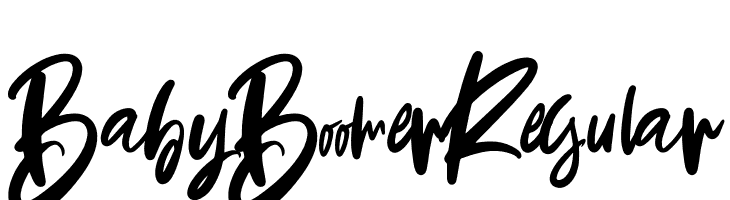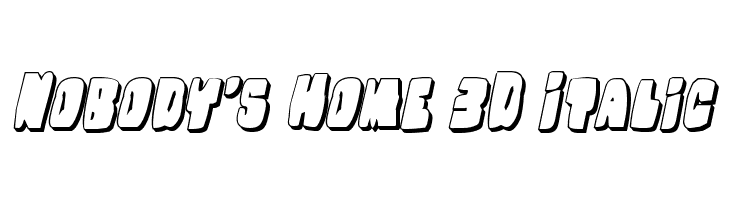
A bold, 3D italic font with a playful and dynamic style.
A bold, geometric font with a modern, industrial style.
A modern and elegant font with clean lines and subtle contrast.
Hand-drawn floral doodle font with whimsical, varied flower illustrations.
A whimsical, decorative font with characters resembling abstract creatures.
A modern, elegant font with tall, slender characters and artistic flair.
A bold, geometric font with sharp angles and a modern, edgy style.
A bold, angular font with a modern, geometric style.
A bold, handwritten font with a dynamic and energetic style.
A modern, geometric sans-serif font with clean lines and uniform strokes.